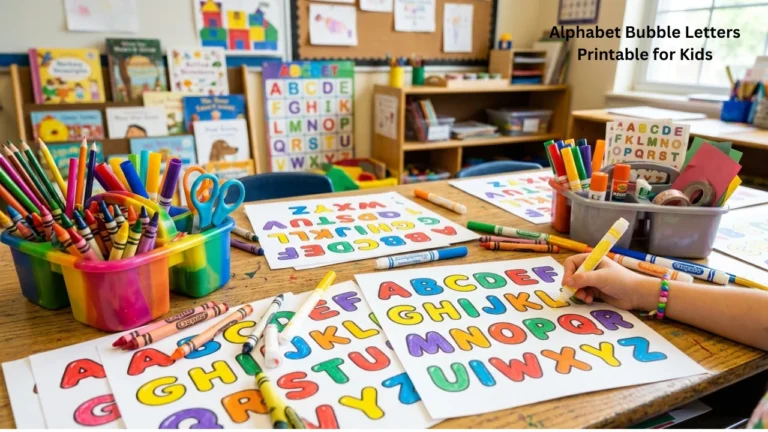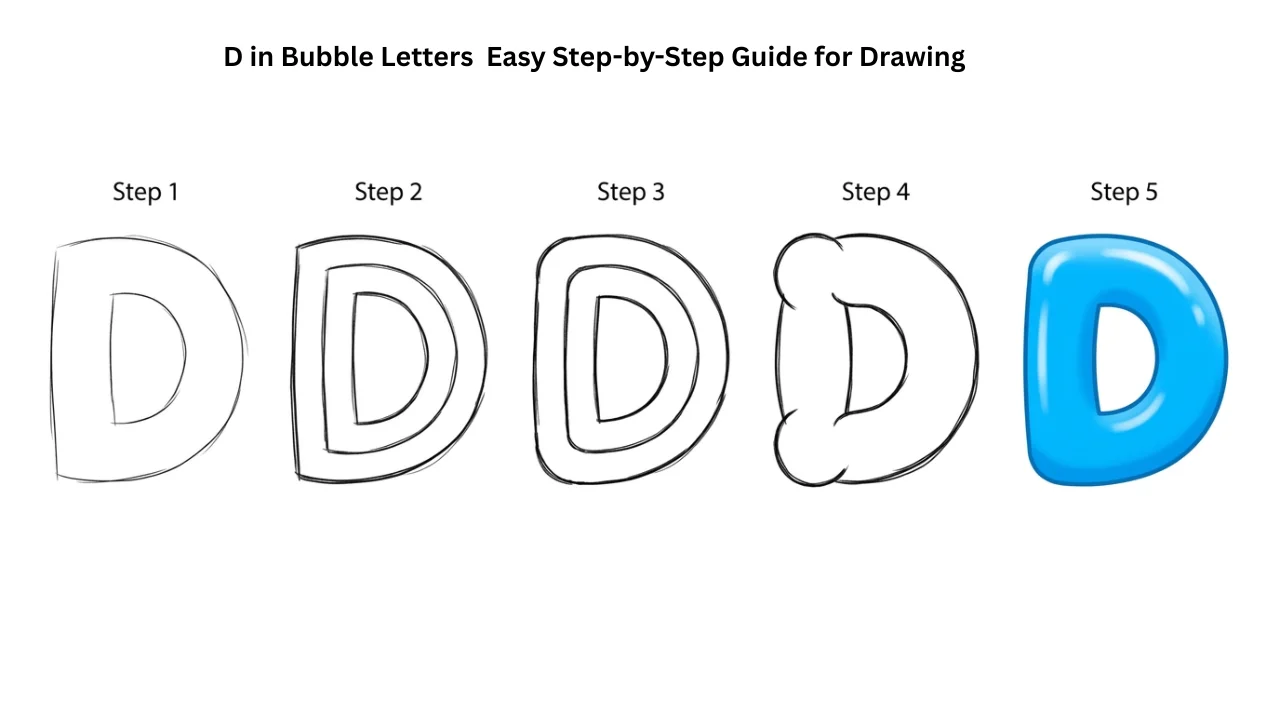
D in Bubble Letters Easy Step-by-Step Guide for Drawing
Bubble letters are fun, bold, and easy to learn. Many people use them in art, school projects, posters, and graffiti-style writing. If you want to improve your lettering skills, learning how to draw d in bubble letters is a great place to start. This guide explains everything in a simple and clear way, so you can follow along without confusion.
What Are D in Bubble Letters?
Bubble letters are rounded, soft, and thick letters that look like bubbles. They have no sharp edges and usually appear playful and bold. People often use them for creative writing, drawing, and decoration.
Key features of bubble letters:
• Rounded edges
• Thick outlines
• Soft and puffy shapes
• Easy to customize with colors and shadows
When you learn how to draw d in bubble letter, you build a base for creating other letters too.
Why Learn D in Bubble Letter?
The letter “D” is one of the easiest bubble letters to draw. It helps beginners understand shape balance and spacing.
Benefits of learning this letter:
• It improves hand control
• It builds confidence in drawing letters
• It helps you understand curves and proportions
• It is useful for words like “design,” “dream,” and “draw”
Once you master d in bubble letter, you can move on to more complex letters.
Step-by-Step Guide
Follow these simple steps to draw your first bubble letter D.
Step 1: Draw a Basic D Shape
Start with a normal capital “D.” Keep it light using a pencil. This will act as your guide.
Step 2: Add Thickness
Draw a second line around the “D” to make it thick. Keep the spacing even all around.
Tip: Make sure the curves stay smooth and rounded.
Step 3: Round the Edges
Erase sharp corners and smooth out the edges. Bubble letters should look soft and puffy.
Step 4: Clean Up the Outline
Erase the inner guide lines. Now you should see a bold and clean d in bubble letter shape.
Step 5: Add Details
You can now add:
• Shadows
• Highlights
• Patterns
This makes your letter more interesting and eye-catching.
Uppercase vs Lowercase
You can draw both uppercase and lowercase versions depending on your style.
TypeShape StyleDifficultyUse Case
Uppercase DBig and boldEasyTitles, posters
Lowercase dSlim and curvedMediumCreative writing
Uppercase is better for beginners, while lowercase needs more control.
Common Mistakes to Avoid
Many beginners make small mistakes when learning bubble letters.
Watch out for these:
• Uneven thickness
• Sharp edges instead of curves
• Overcrowded shapes
• Poor spacing
When drawing d in bubble letter, always keep your lines smooth and balanced.
Styling Ideas for Bubble Letter D
Once you learn the basic shape, you can experiment with styles.
1. Shadow Effect
Add a shadow behind the letter to give a 3D look.
2. Gradient Coloring
Use two or more colors to create a smooth blend.
3. Pattern Fill
Fill the letter with dots, stripes, or shapes.
4. Outline Glow
Add a second outline for a glowing effect.
Creative styling makes your d in bubble letters stand out.
Tools You Can Use
You don’t need expensive tools to get started.
ToolPurposeRecommended For
PencilSketchingBeginners
EraserCleaning linesEveryone
MarkerBold outlinesFinal drawing
Colored pencilsColoringCreative work
Digital tabletDigital artAdvanced users
Start simple, then upgrade as you improve.
Tips for Perfect Bubble Letters
Improving your lettering takes practice. Use these tips to get better results.
• Draw slowly and carefully
• Practice daily for better control
• Use light strokes first
• Keep proportions balanced
• Study other bubble letter styles
If you practice regularly, your d in bubble letter will look more polished over time.
Practice Exercises
Try these exercises to improve faster.
Exercise 1: Repeat Drawing
Draw the letter D at least 10 times in bubble style.
Exercise 2: Size Variation
Draw small, medium, and large versions.
Exercise 3: Style Change
Create three different styles of the same letter.
Exercise 4: Word Practice
Write simple words like:
• Dog
• Dream
• Design
This helps you understand how d in bubble letter fits into words.
How to Make Your Bubble Letter Look 3D
Adding depth can make your letter more exciting.
Steps to create 3D effect:
1. Choose a direction for depth
2. Extend lines from the edges
3. Connect the lines
4. Shade one side
This gives your d in bubble letter a bold and realistic look.
Digital vs Hand Drawing
You can draw bubble letters on paper or digitally.
Conclusion
Learning how to draw d in bubble letters is simple, fun, and useful. It helps you build basic drawing skills while giving you creative freedom. Start with a simple shape, make it thick and rounded, and then add your own style. With regular practice, your letters will look bold, clean, and professional.
Remember: consistency matters more than perfection. Keep practicing, experiment with styles, and enjoy the process. Soon, you will be able to create amazing bubble lettering with confidence.